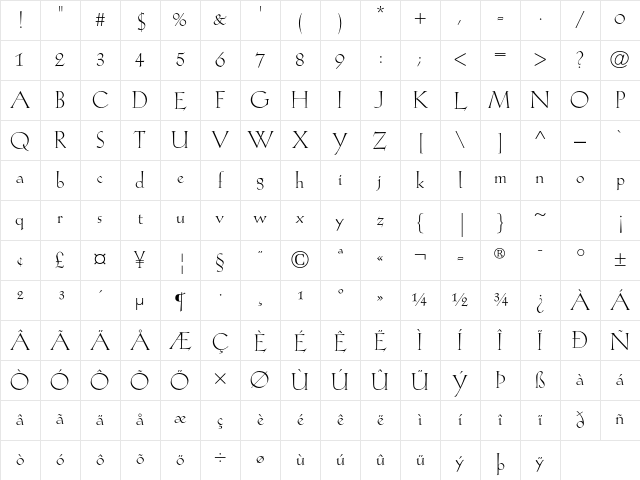
Koch Antiqua LT Std Regular
Designer: Rudolf Koch
Design Context for Koch Antiqua LT Std
Koch Antiqua LT Std is a composed and adaptable typeface that performs quietly and consistently across a wide range of design contexts. Its slender proportions lend an understated elegance to any composition.